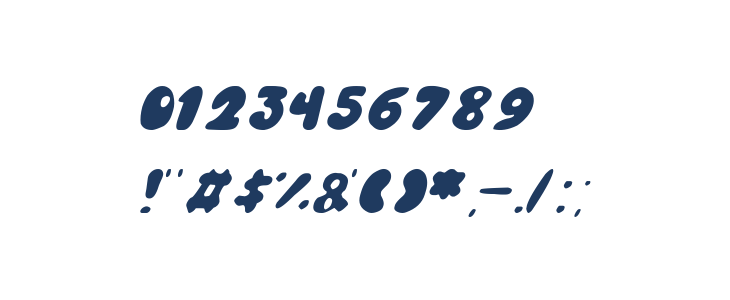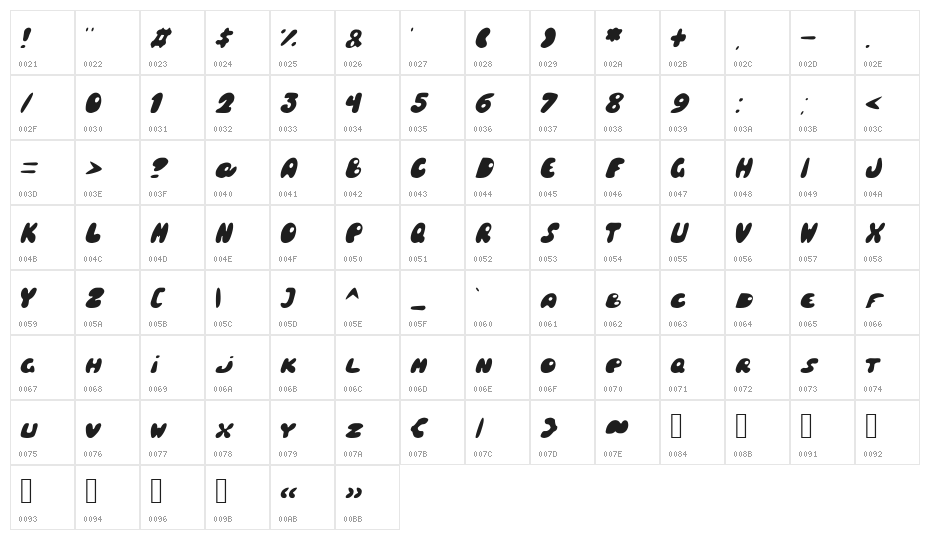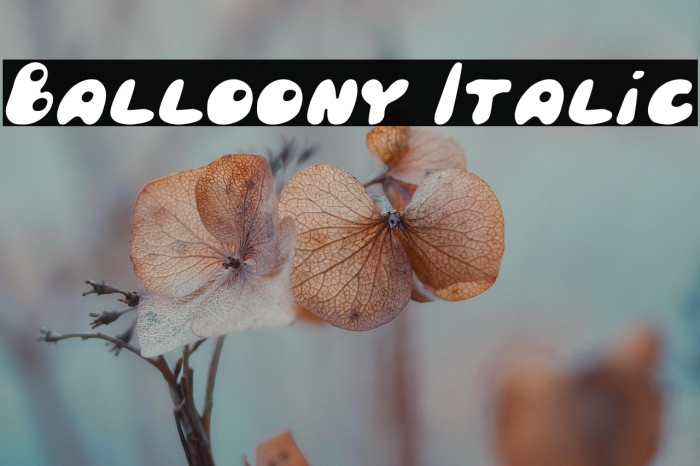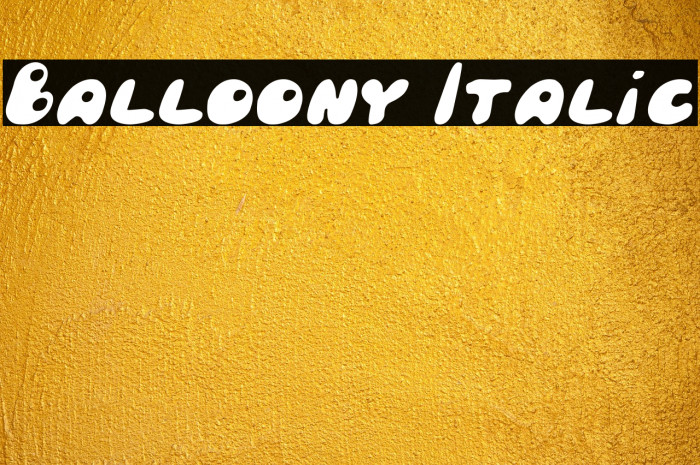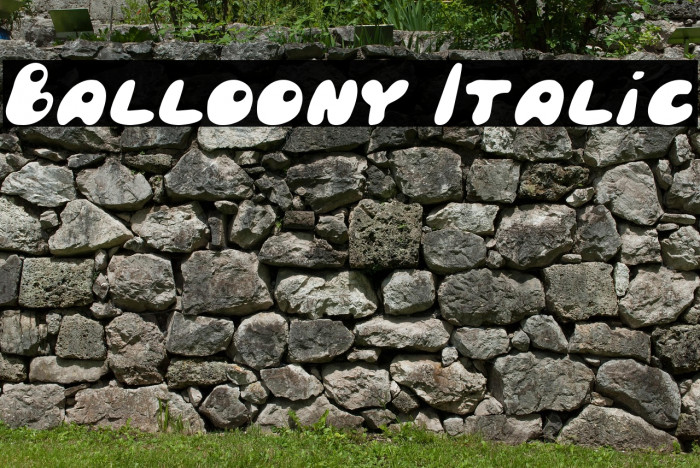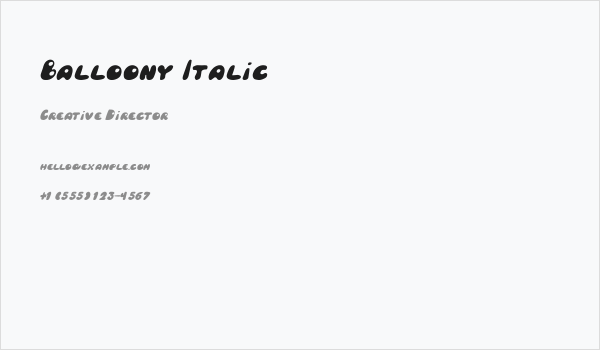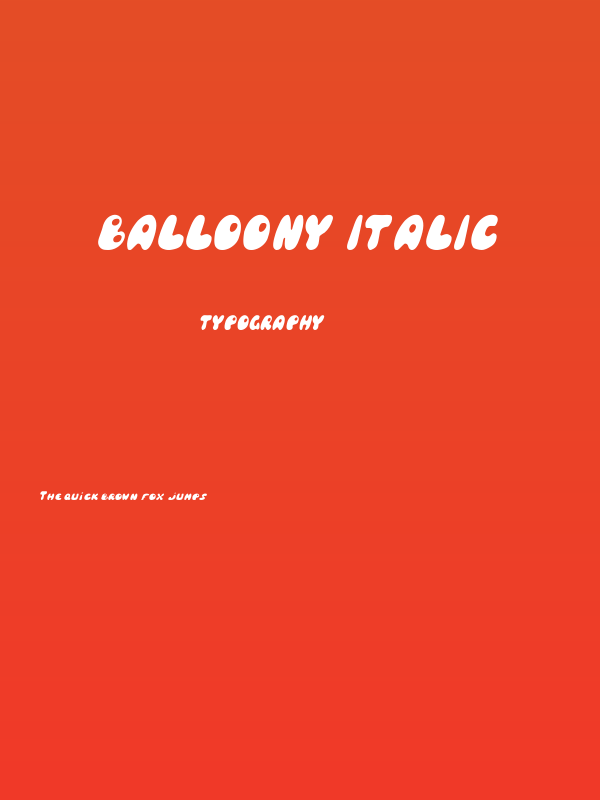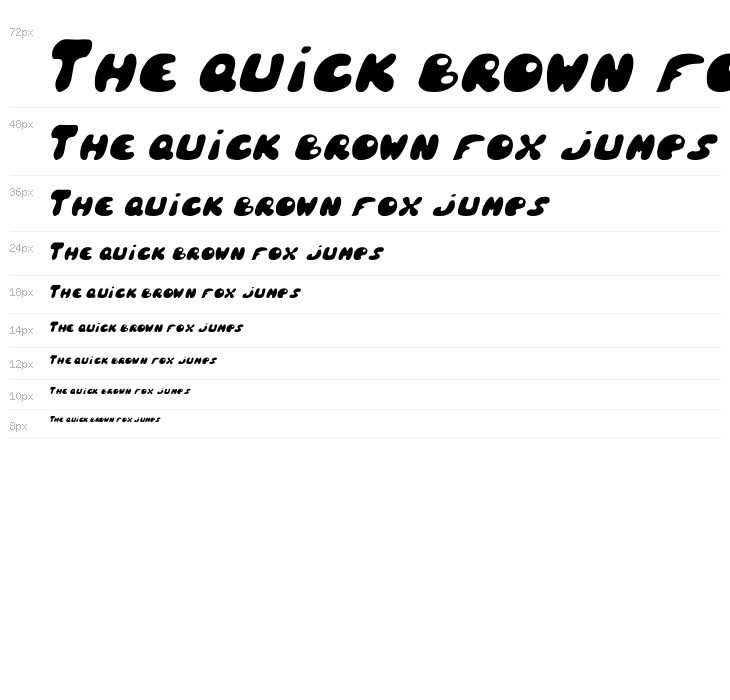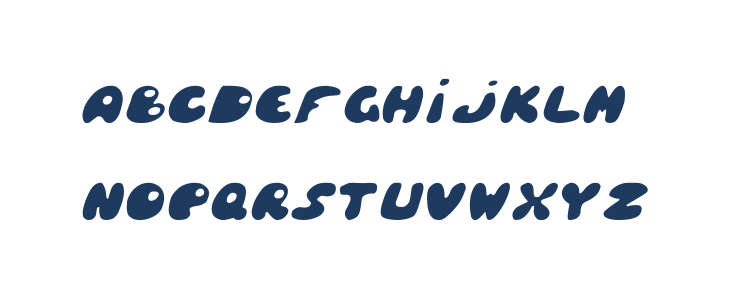
Balloony Italic Font
Balloony Italic Description
This playful and whimsical font features rounded, balloon-like characters that give it a fun and bouncy appearance. The letters are bold and have a soft, inflated look, reminiscent of party balloons. Each character is slightly tilted, adding a dynamic and lively feel. The font maintains a consistent thickness throughout, with smooth curves and no sharp edges, enhancing its friendly and approachable style. The numbers and special characters follow the same design principles, ensuring a cohesive look across all glyphs.
Overall StylePlayful
Proposed ProjectsIdeal for children's party invitations, playful branding, or any project requiring a fun and lighthearted touch.